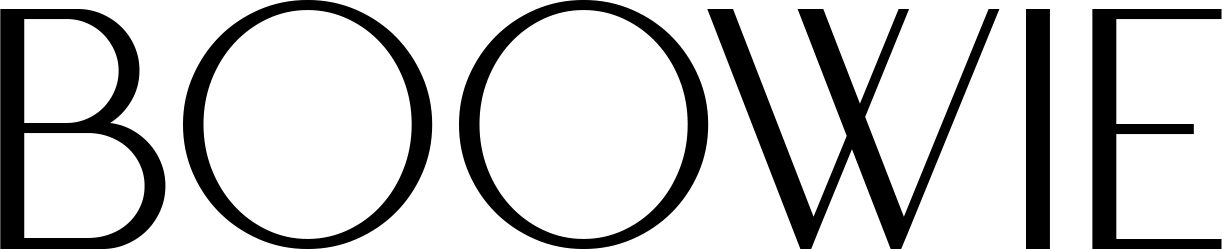
Boowie Font
Boowie is from the sans serif font family and comes with thin, neat, and sharp characters giving off classic vibes. If you want to sound so to your target audience Boowie fits the bill.
Although it comes with uppercase letters only, it makes a great choice for you. You can use this luxury sans serif font in branding, product packaging, logotypes, posters, and so forth.